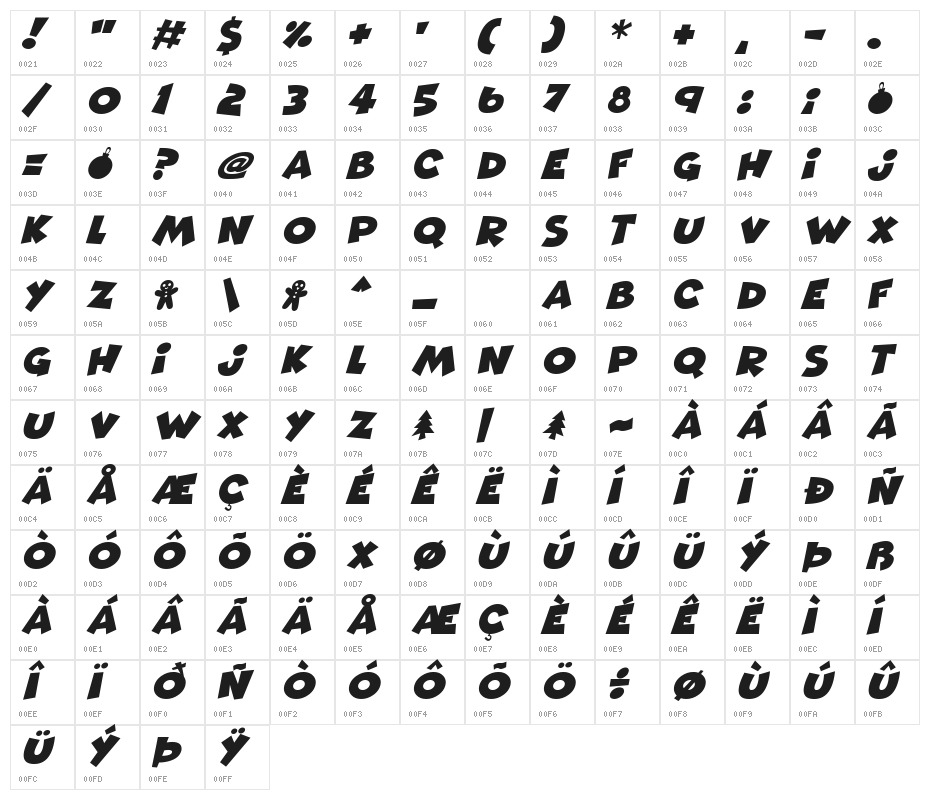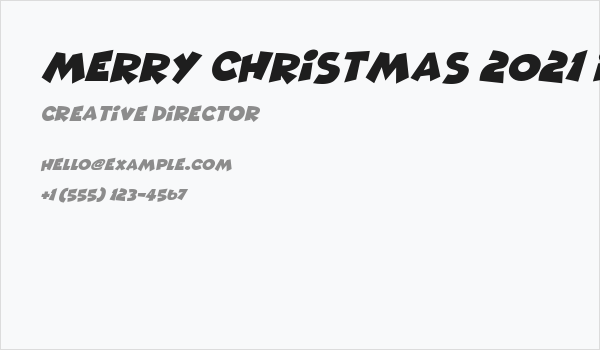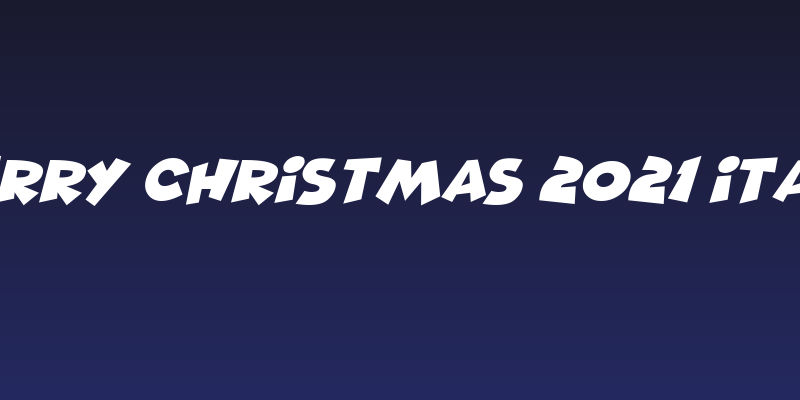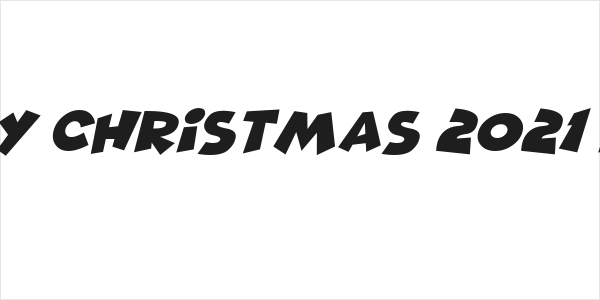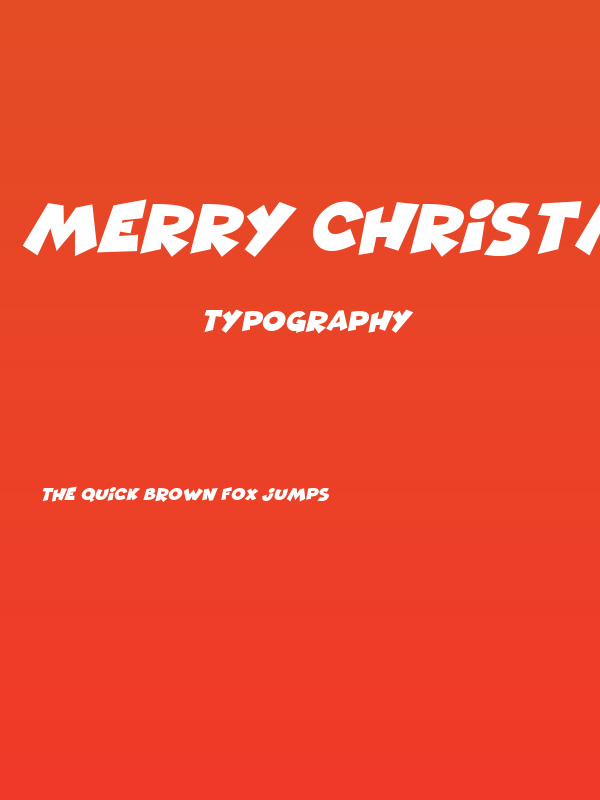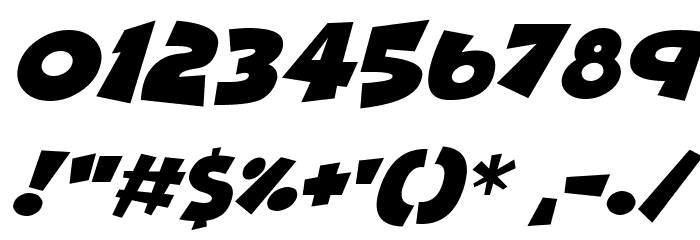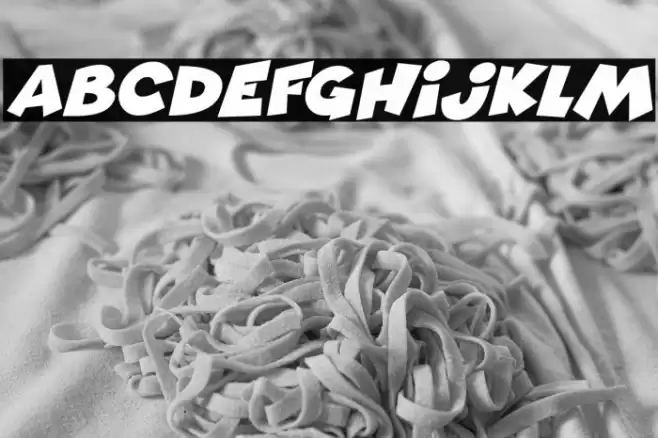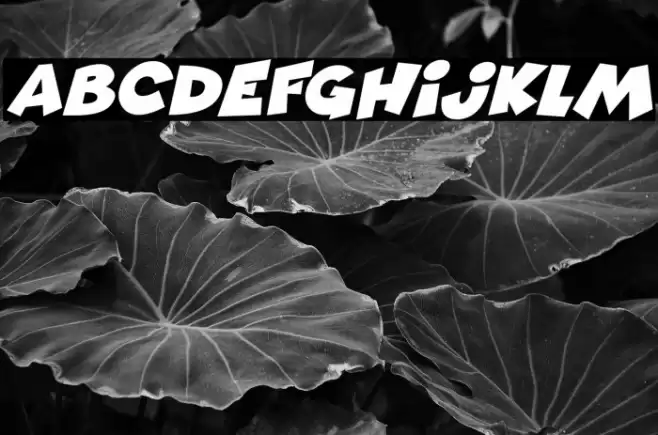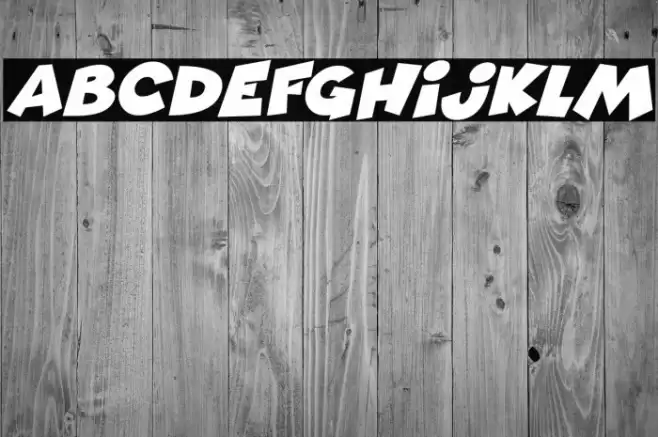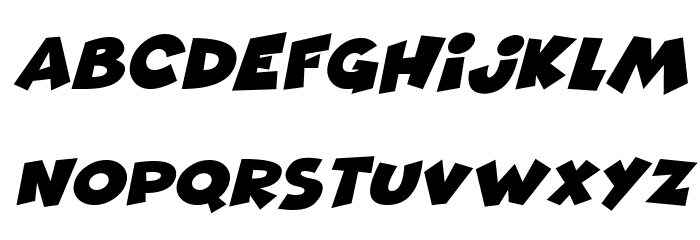
Merry Christmas 2021 Italic Font
Merry Christmas 2021 Italic Description
This font features a bold and dynamic style with a playful and energetic appearance. The characters are slanted, giving an italicized effect that enhances its lively nature. The strokes are thick and consistent, providing a strong visual impact. The letters have a slightly irregular shape, adding to the whimsical and informal feel. This font is ideal for creating eye-catching designs that require a sense of fun and movement. The numbers and special characters maintain the same bold and slanted style, ensuring consistency across all text elements.
| Overall Style | Playful and Energetic |
| Proposed Projects | Ideal for holiday cards, festive banners, playful posters, and children's book covers. |